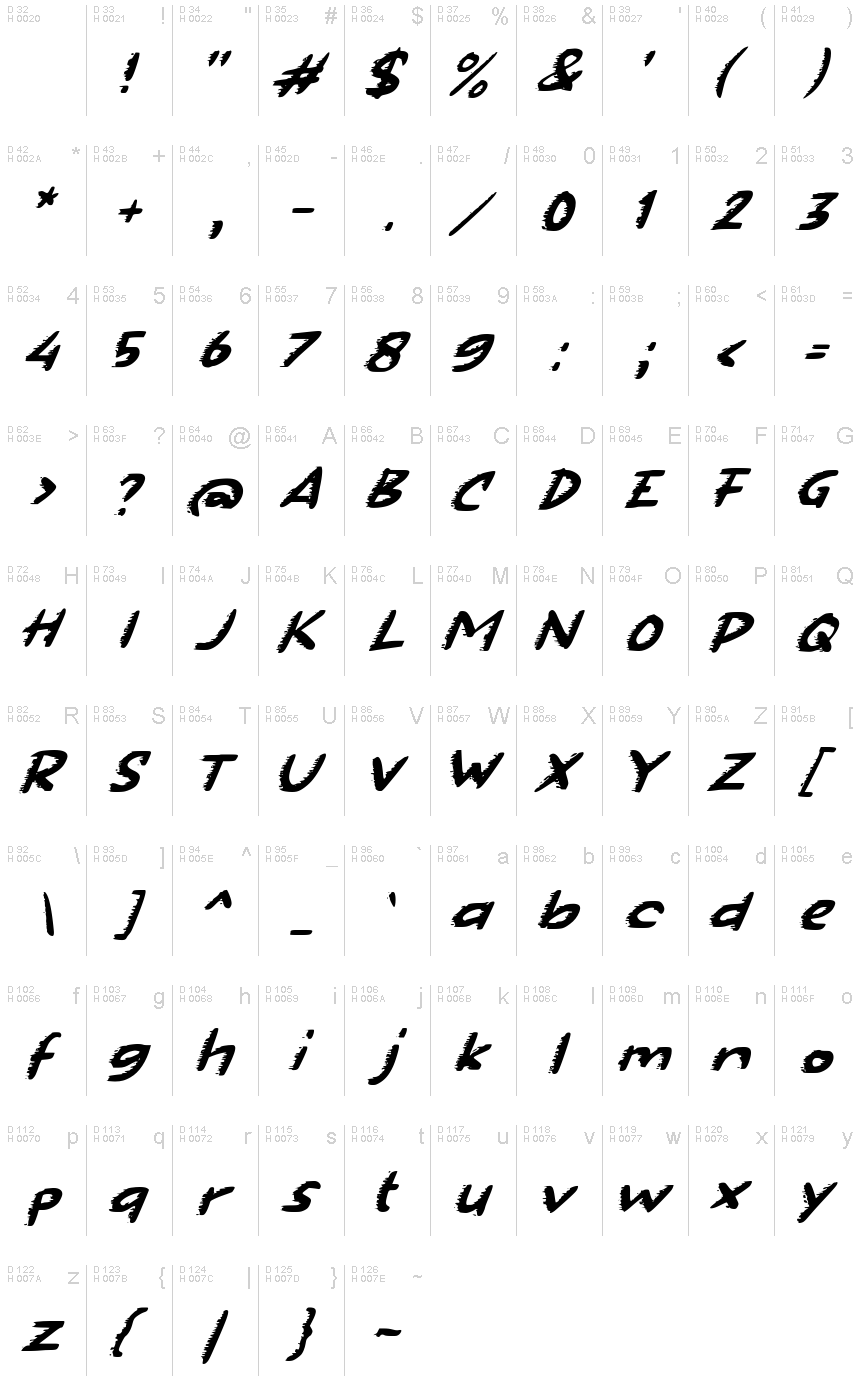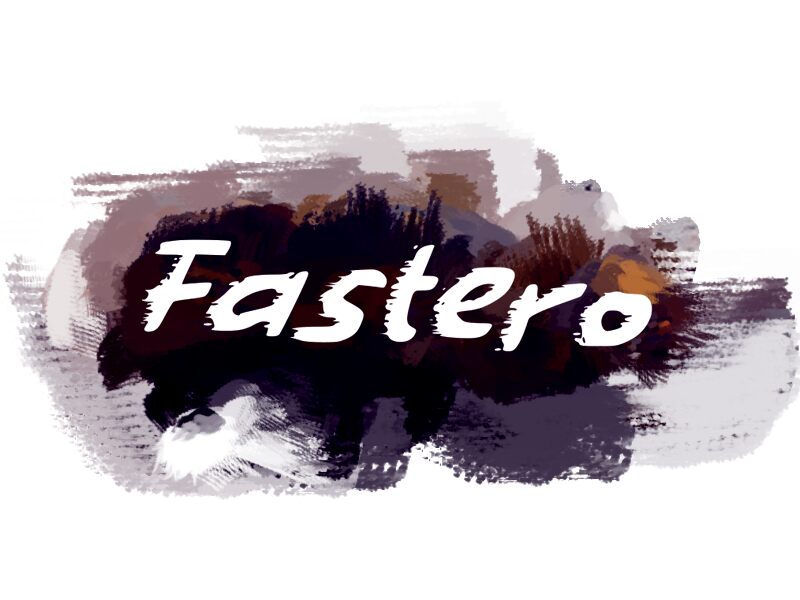
Fastero
Fastero font by Wep is an exciting and energetic free script font characterized by dynamic brush-like strokes. This contemporary typeface is expressive, giving it a trashy style suitable for modern designs with character. Each element seems to transform into the attention-grabbing features of your visual identity development, whether it’s personal or related to business.
Fastero works beautifully on headings and posters as well as printing projects like T-shirts, bags, caps etc. Use it on advertisements, packaging boxes and cans, outdoor signs and neon signs ideas!